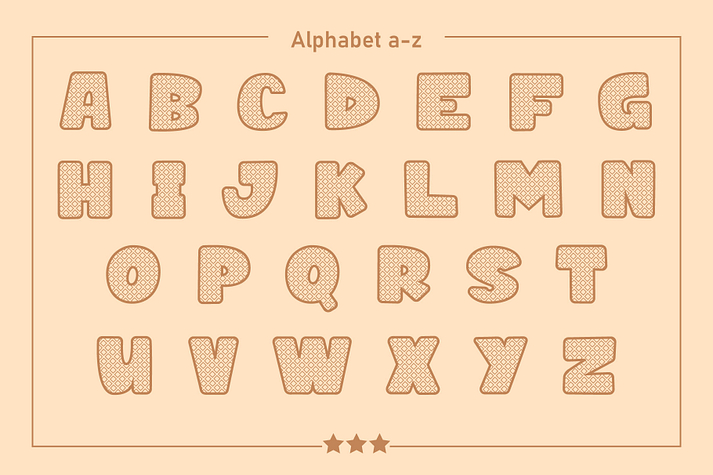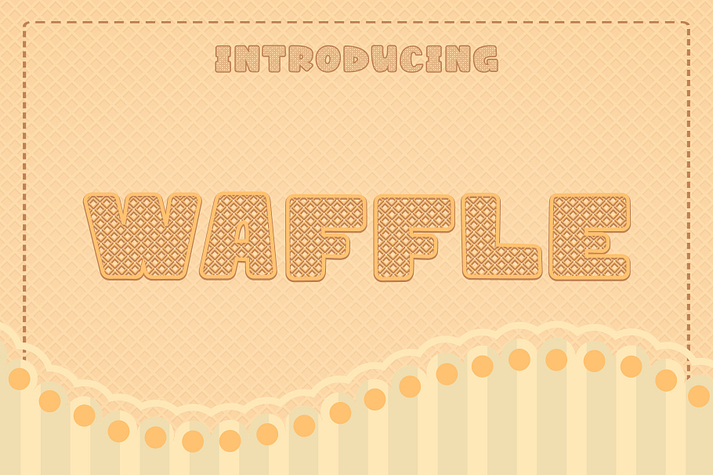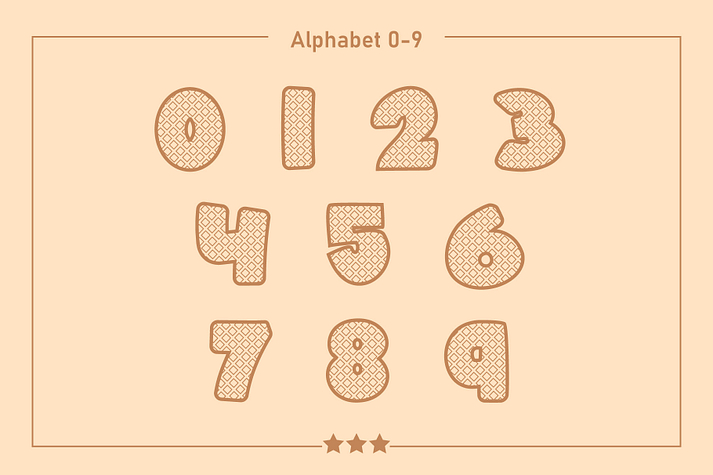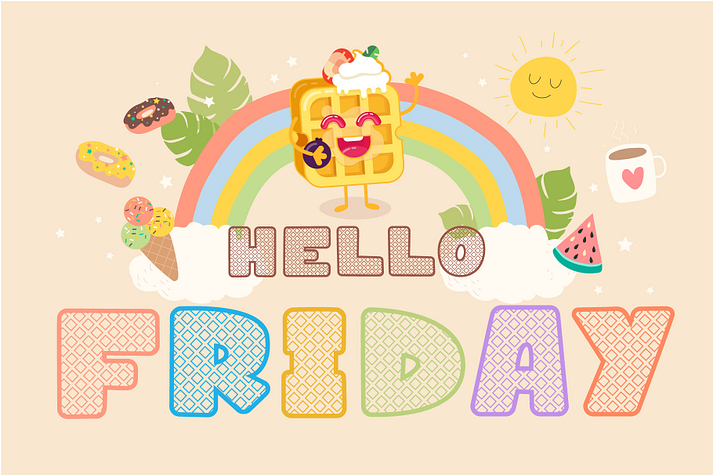
Waffle
Waffle is a font family published by Fox7.
Waffle Fonts are display fonts that are brilliant, fun, and cute, suitable for Ideal for designing dessert menus. and work on a cute and bright theme. Add this font to your favorite creative ideas and notice how it makes them come alive!.